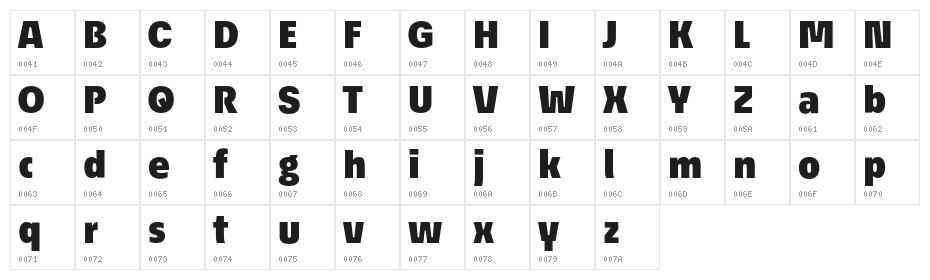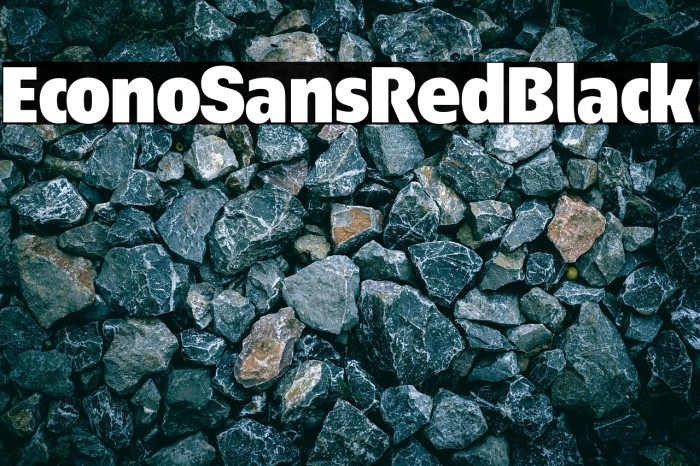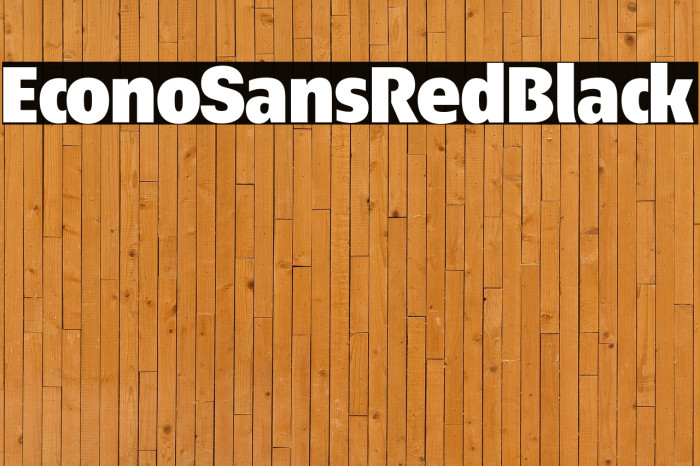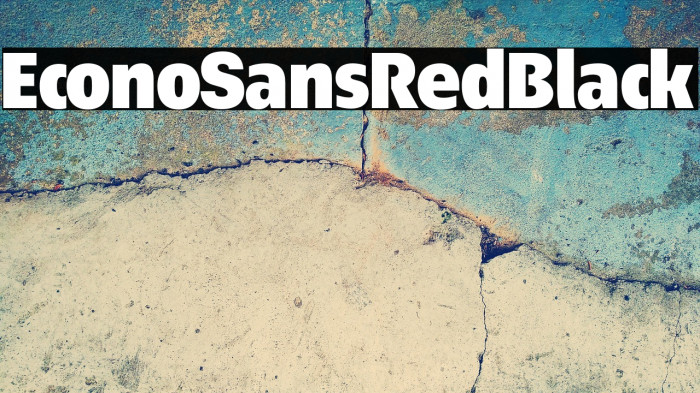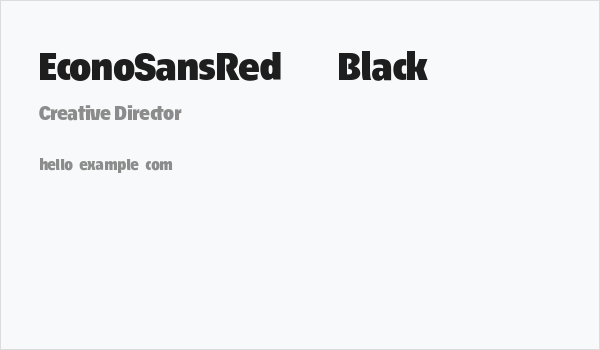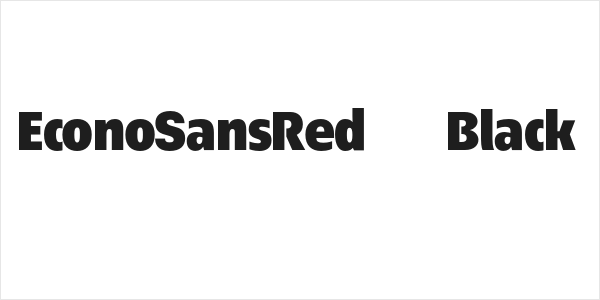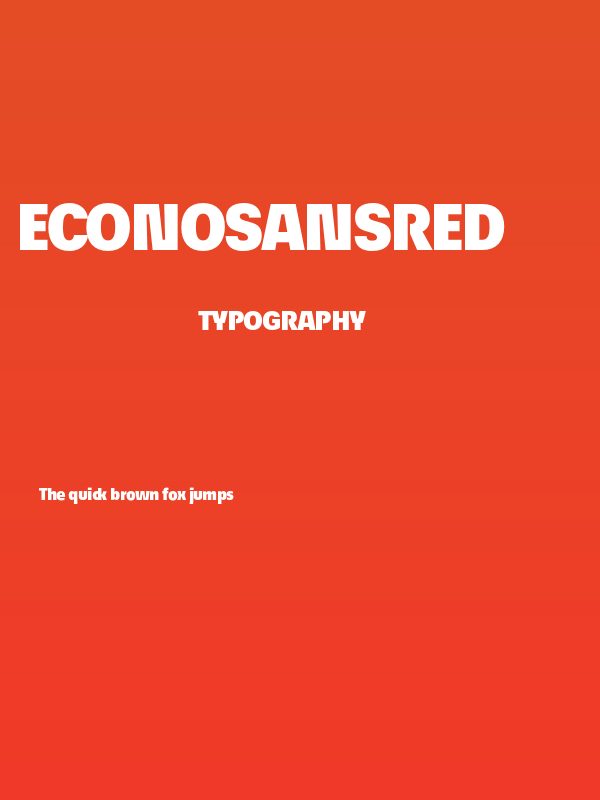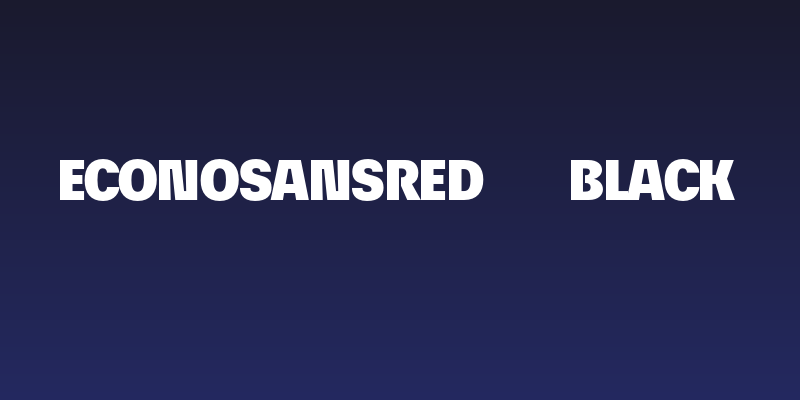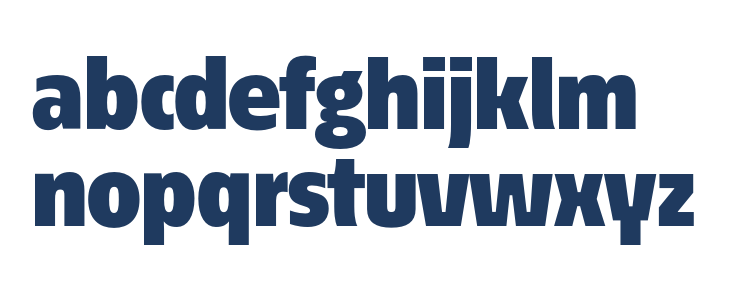
EconoSansRed-95Black Font
EconoSansRed-95Black Description
This font features a bold and impactful design, characterized by its thick, uniform strokes and strong presence. The uppercase and lowercase letters are crafted with a geometric precision, giving it a modern and assertive look. The characters are wide and have a consistent weight throughout, making them highly legible and suitable for attention-grabbing headlines. The font's boldness is complemented by its clean lines and lack of serifs, which contribute to its contemporary style. The spacing between characters is tight, enhancing its compact and cohesive appearance.
| Proposed Projects | Ideal for branding, advertising, headlines, posters, and any project requiring a strong visual impact. |